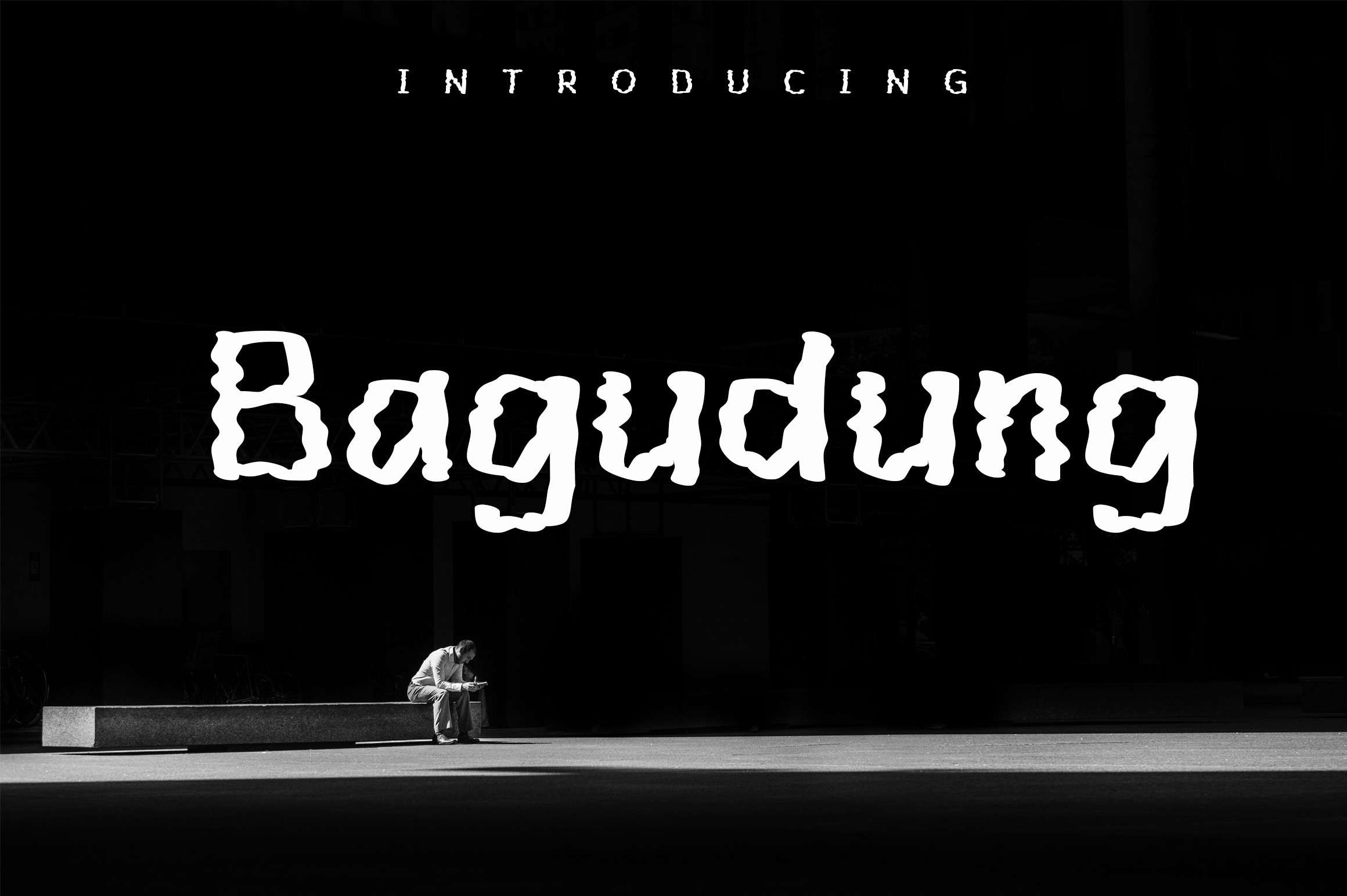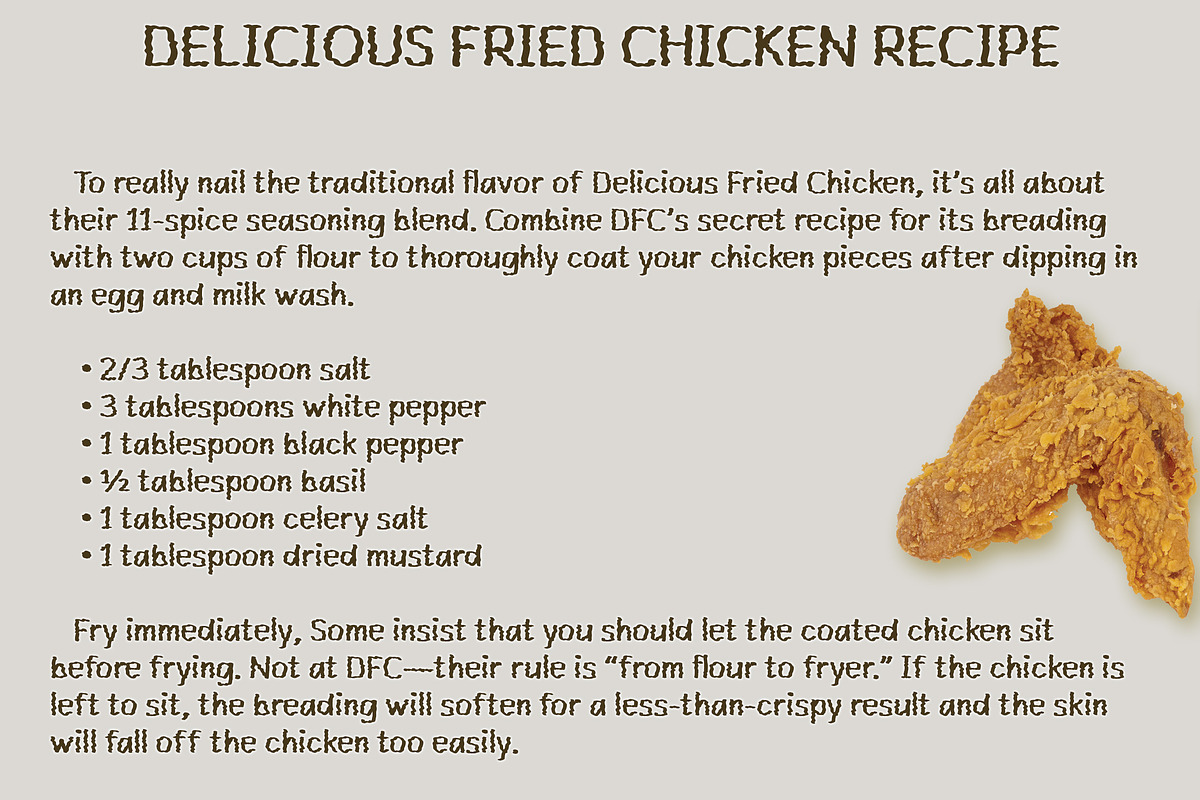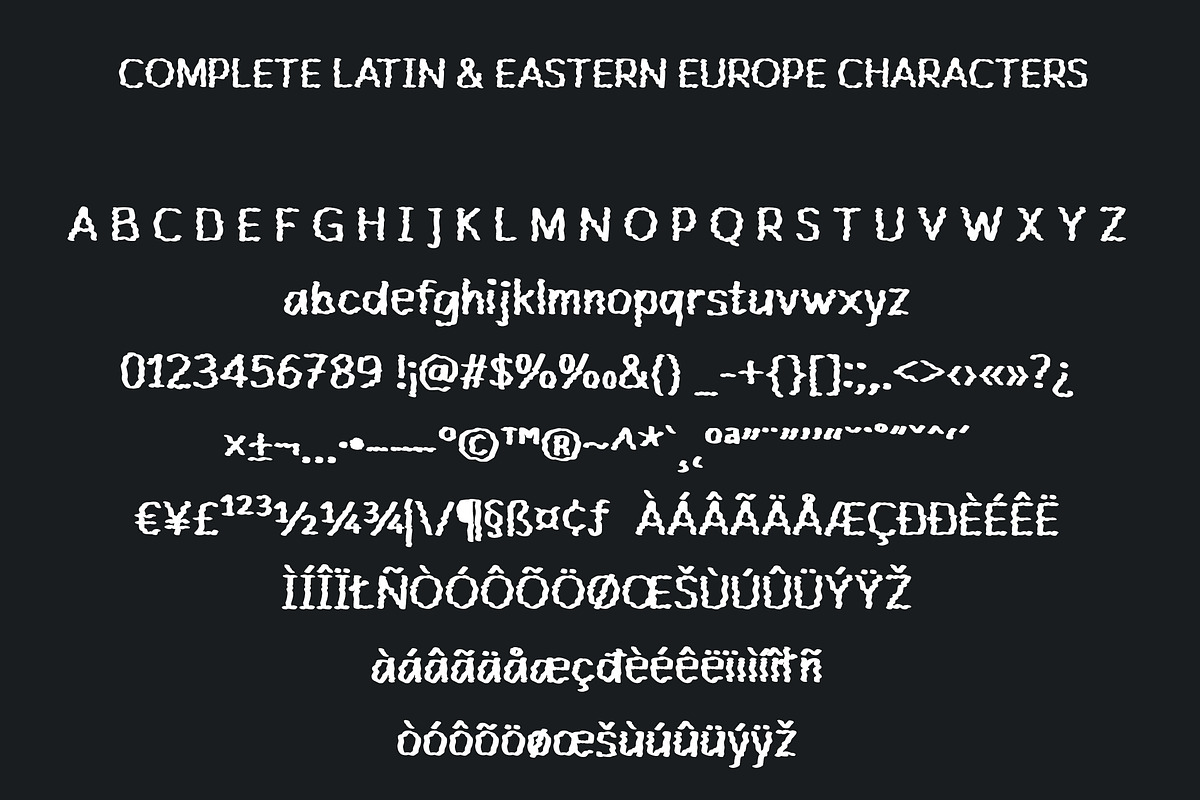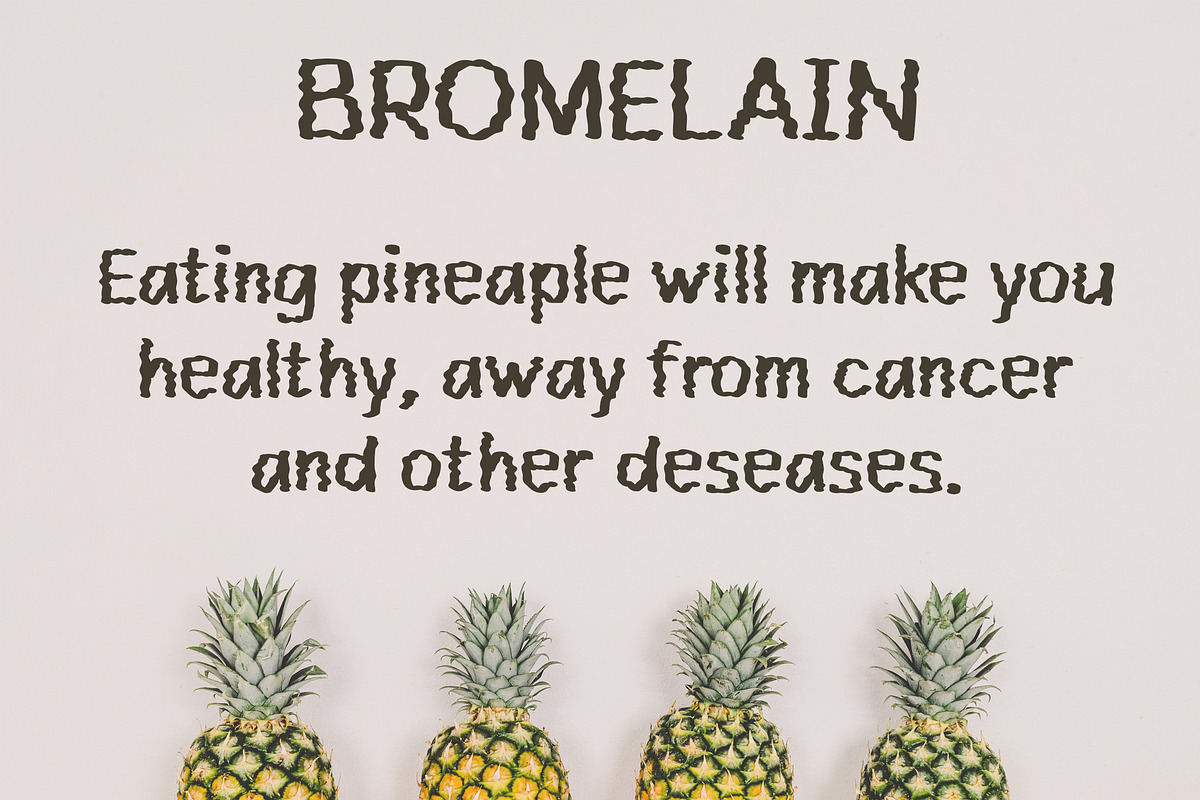
Bagudung | Handwritten Font
Introducing a new cute bold handwritten font named as Bagudung. All node was cleaned in fairly natural shape. This font will nice for logo, title, subtitle, T-shirt, Mug, etc.
- Have 230 glyphs, supported to all Latin and Eastern Europe characters.
- All node was cleaned in fairly natural shape.
- Less stress with no alternate characters, standard letter already cute and fun.